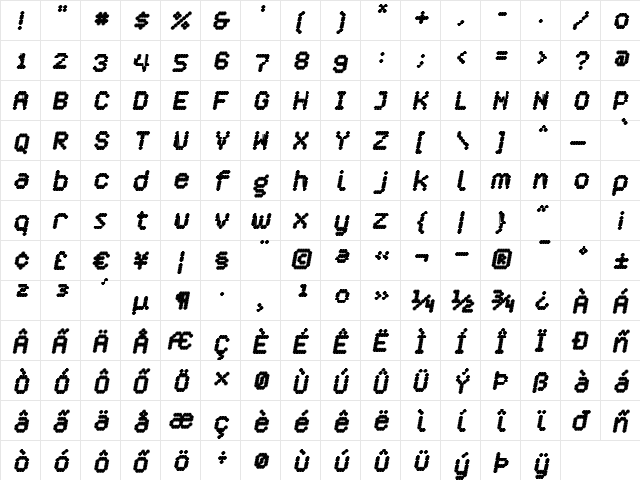
Crossover BlackOblique
| Foundry | YouWorkForThem |
| Designer | Michael Cina |
Design Context for Crossover Typeface
Crossover takes a measured approach to typography — its balanced proportions and neutral character make it a reliable workhorse for both digital and print work. Its italic angle brings a sense of urgency and motion to the letterforms.
Pro Tip: Try Crossover for annotation and caption copy alongside an upright companion — the contrast in angle creates a dynamic but ordered typographic system.